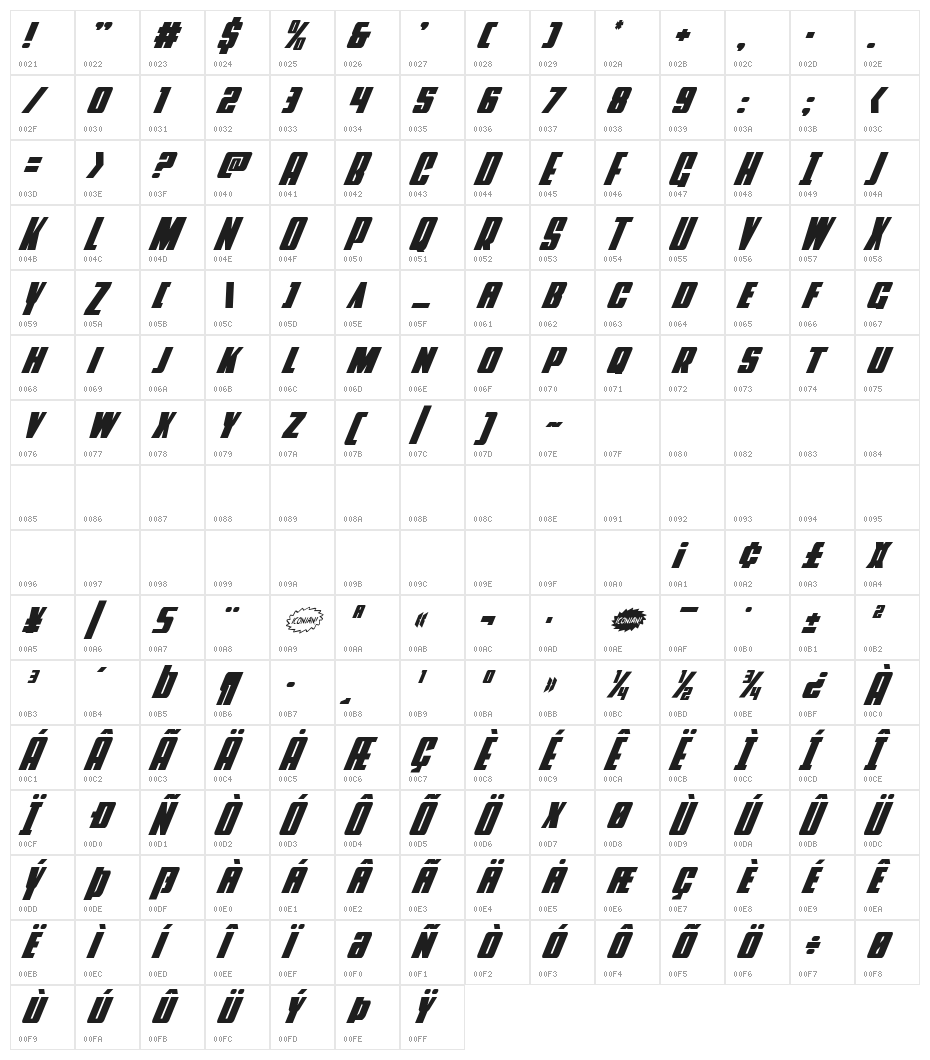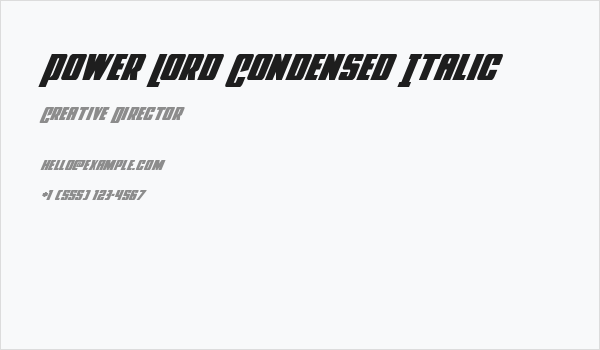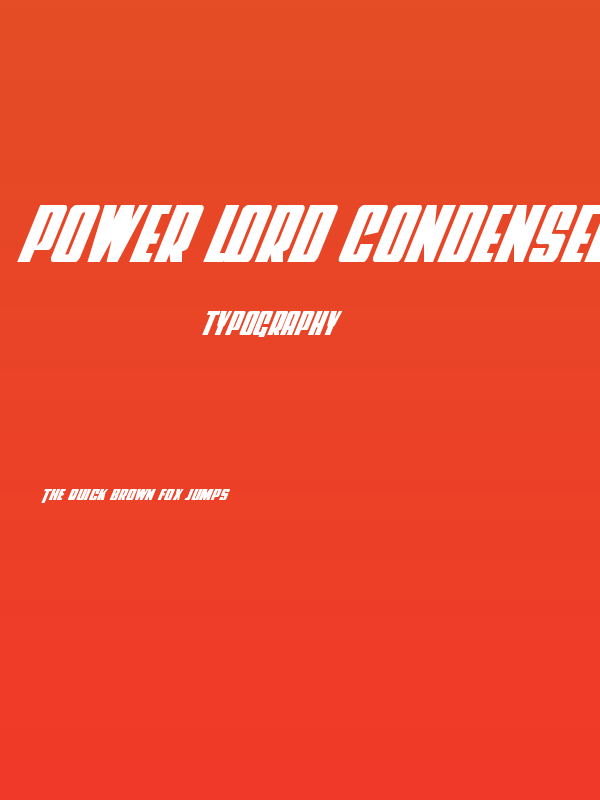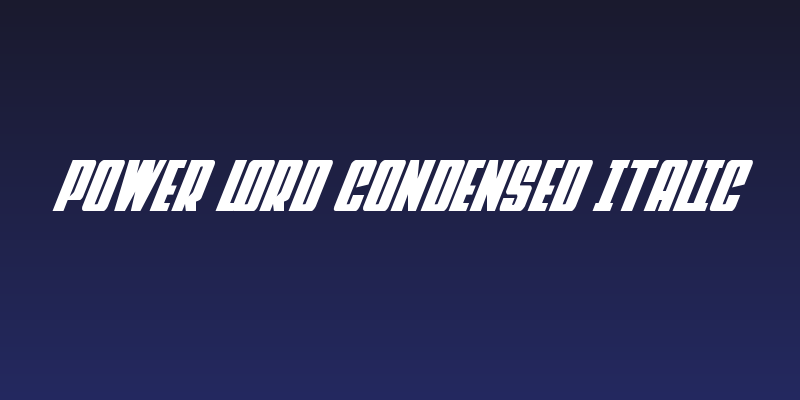
Power Lord Condensed Italic Font
Power Lord Condensed Italic Description
This font features a bold and dynamic style with a strong italic slant, creating a sense of motion and energy. The characters are condensed, giving them a compact appearance that enhances their boldness. The strokes are thick and consistent, providing a uniform look across all characters. The uppercase and lowercase letters maintain a cohesive design, with sharp angles and clean lines that contribute to a modern and assertive aesthetic. The numerals and special characters are designed to match the overall style, ensuring versatility in various applications. This font is ideal for projects that require a powerful and impactful visual presence.
| Proposed Projects | Ideal for sports branding, action movie posters, dynamic logos, and impactful headlines. |